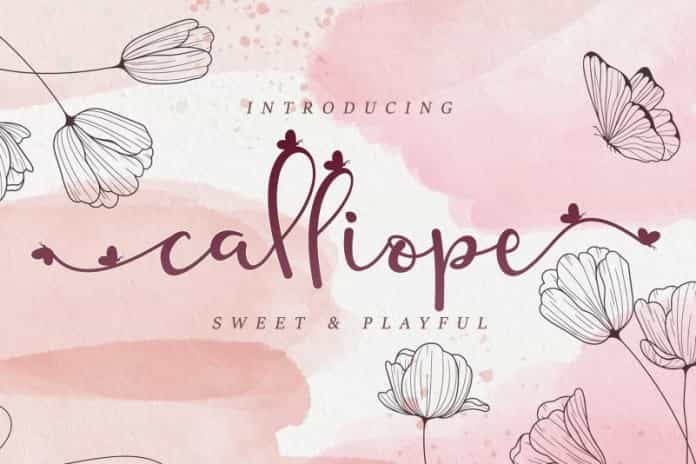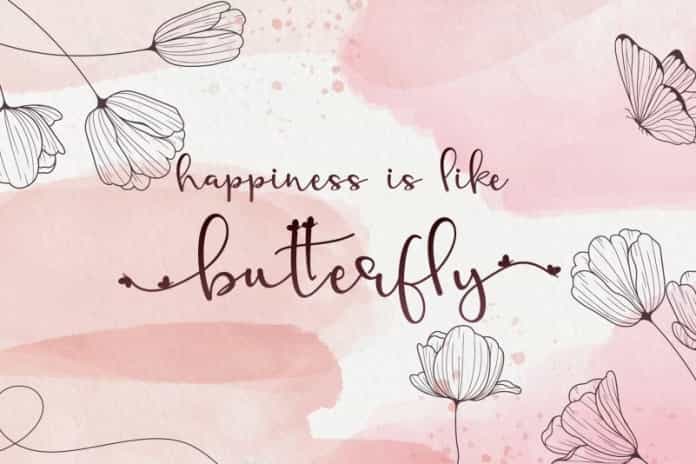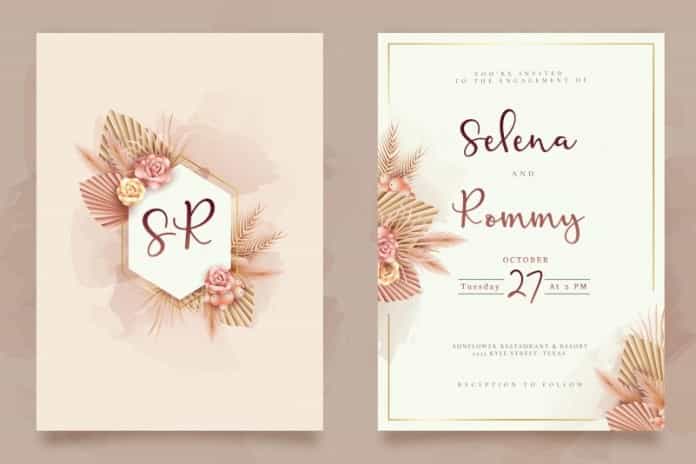
Discover Calliope Modern Calligraphy Script Font, part of the Calligraphy Script collection—a versatile and unique font perfect for adding a personal touch to your projects. Download it for free and enjoy crafting designs with style, from invitations to social media posts. This font is available exclusively for personal use, giving you the freedom to create without limits. Unlock your creativity with Calliope Modern Calligraphy Script Font today!
The font is animated and cute which makes it perfect for creating calligraphy; there is a cute butterfly image on each swash. It is suitable for wedding invitations, thank you cards, greeting cards and business cards and logos or any design that has handwritten aspects, Calliope is elegant on both.